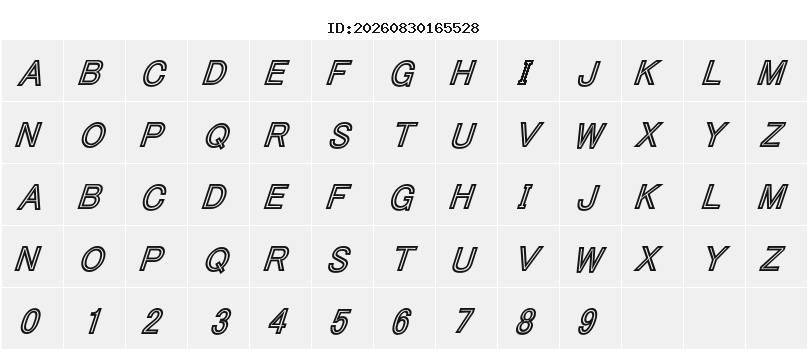
Tha Cool Kidz Black Preview
• Font Name: Tha Cool Kidz Black
• Designer: Chris Vile
• Manufacturer: Font Monger
• Description: Tha Cool Kidz Black Italic is a font by Font Monger, designed by Chris Vile in 2015.
About Tha Cool Kidz Black.otf
Tha Cool Kidz Black.otf is a modern, elegant sans-serif font designed for ultimate readability and visual harmony. Perfect for branding, headlines, web design, and print materials.